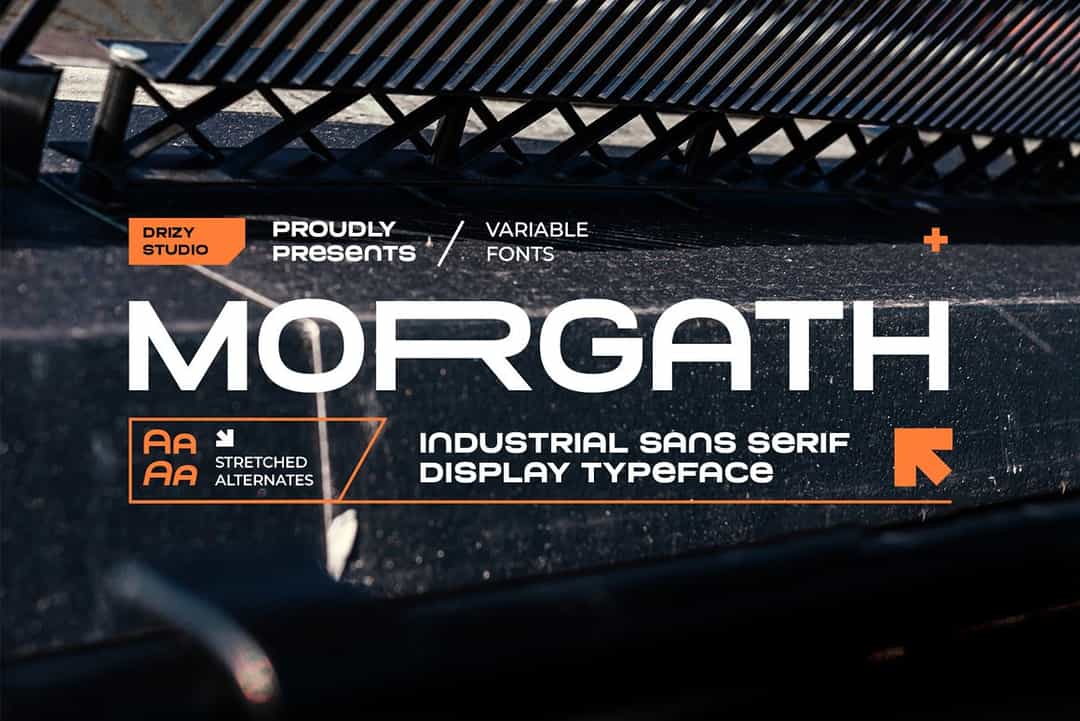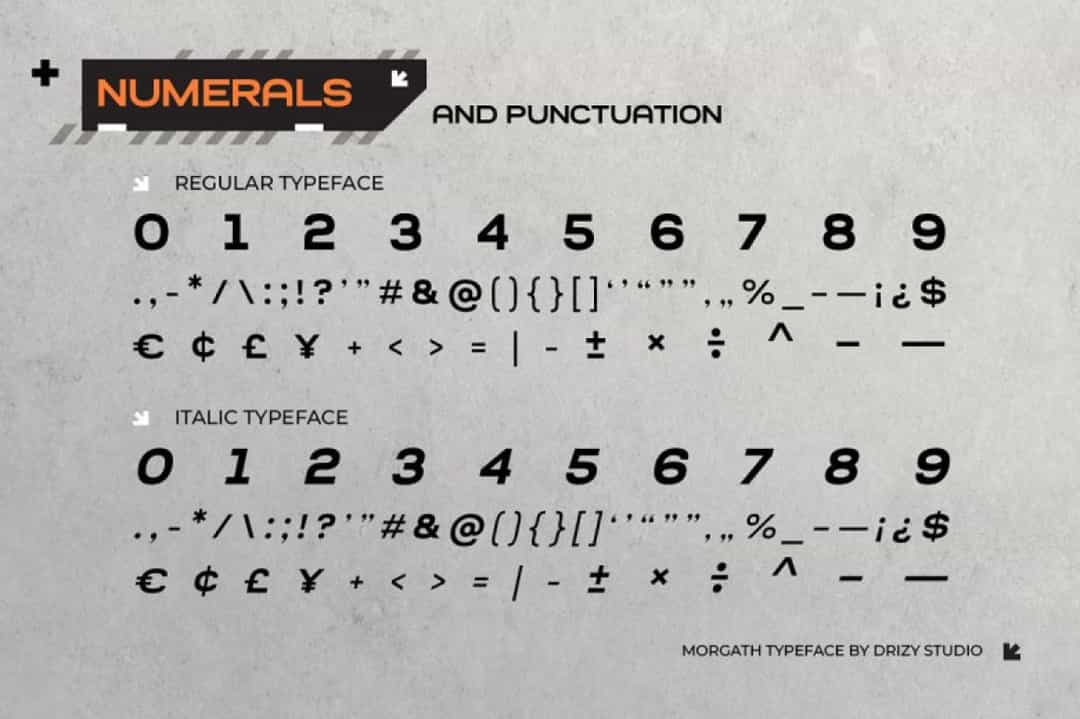
Morgath: Industrial Sans Serif Font. Be ready to experience the latest trends in typography with Morgath’s amazing Industrial Sans Serif Font, designed to add an industrial look and feel to your work. Morgath represents pure power and precision of industrial age with every stroke it makes!